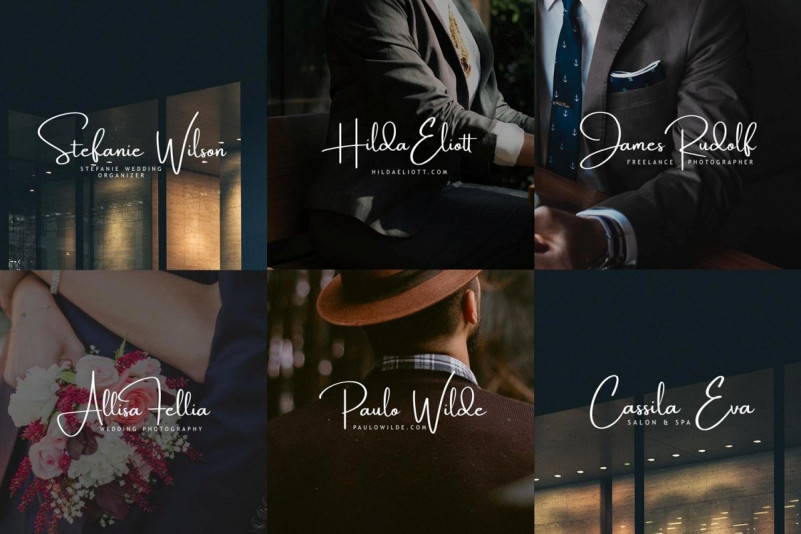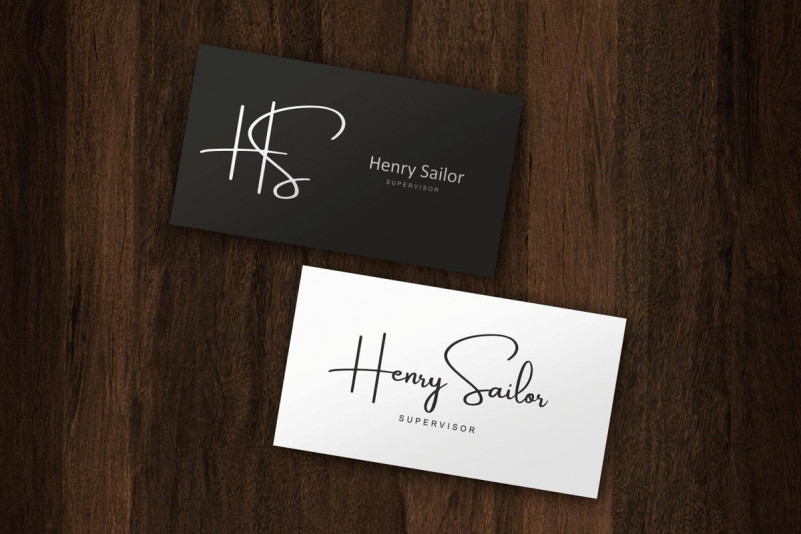
Amsterdam Signature Font
Hi Designer! If you are in need of a handwritten font style signature, Befonts will introduce you. Introducing Amsterdam Font. It is designed and shared by Lettersiro. The Amsterdam Signature Fontis a simple and classy font, comes with 8 Elegant Variations, opentype features such as stylistic alternates,initial and final form, and ligatures.
The Amsterdam Font is the great choice for watermark on photography, signature or signature logo design, quotes, album cover, business card, and many other design project. From business cards to photo watermarks, The Amsterdam is here to elevate your work to the highest level